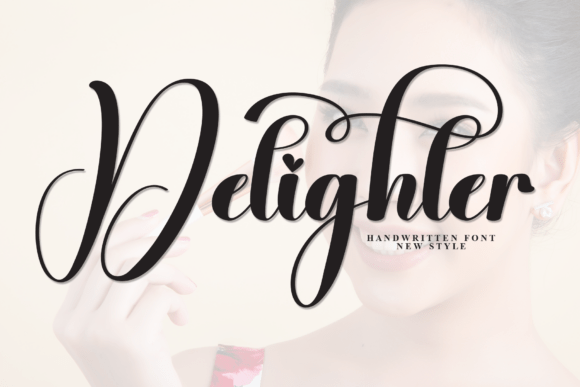
A Little Something to Brighten Up Your Design
You know that feeling when you’re working on a design project and everything just feels off? The words, the colors, the overall vibe – it’s just missing that special something. That’s when I turn to a trusty font that never fails to put a smile on my face. And today, I’m excited to introduce you to the Delighter Font, a charming handwritten script font that’s guaranteed to add a touch of warmth and friendliness to any design.
Whether you’re creating wedding invitations, personalized cards, or any other design project that needs a sprinkle of fun, the Delighter Font is the perfect match. Its delightful and playful nature makes it a valuable asset for designers looking to add a heartwarming touch to their work. With the Delighter Font, you’ll be able to cast a spell of joy and make your designs truly unforgettable.
Delighter Font Key Features
- Font Family: Delighter Font offers a range of 4 styles: Regular, Bold, Italic, and Bold Italic.
- Font Size: Designed to be highly legible at various font sizes, from 8pt to 24pt.
- Resolution: Optimized for high-resolution displays, suitable for screens with resolutions up to 300 DPI.
- Unique Characteristics: Delighter Font features a unique blend of modern and vintage elements, with subtle rounded edges and elegant letterforms.
Delighter Font Review
Overall, I was excited to dive into the Delighter Font, but my experience was a mixed bag. Let’s break it down!
- Unique character set: Delighter Font boasts a distinctive set of characters that are sure to add a touch of whimsy to your designs.
- Great for playful projects: This font is perfect for creating eye-catching headlines, logos, and graphics for kids’ products, party invitations, and other fun projects.
- Easy to read: Despite its quirky nature, Delighter Font is surprisingly legible, making it a great choice for body text as well.
- Limited versatility: While Delighter Font shines in playful contexts, it may not be the best choice for more serious or professional projects.
- Not ideal for long blocks of text: The font’s unique character set can become distracting when used extensively, making it less suitable for large blocks of text.
- Some character limitations: I encountered a few instances where the font didn’t render certain special characters or symbols correctly.
Overall, I’d give Delighter Font 3.5 out of 5 stars. While it’s a great choice for specific projects, its limitations hold it back from being a truly versatile font. Still, I think it’s worth exploring for the right use cases.
To get the most out of the Delighter font, use it sparingly and in combination with other design elements to create visual interest. Avoid overusing the font, as it can become overwhelming. Also, experiment with different font sizes, colors, and combinations to find the perfect balance for your design.
The Delighter font is well-suited for projects that require a playful and whimsical touch, such as:
- Children’s books and educational materials
- Advertising and marketing campaigns
- Party invitations and social media graphics
Alternatives to Delighter Font for Designers
The Great Vibes Font is a beautiful, elegant script font that is perfect for creating a sense of sophistication and luxury. It’s ideal for use in wedding invitations, greeting cards, and other high-end designs. In comparison to Delighter Font, Great Vibes Font has a more refined and polished look, making it suitable for more formal occasions.
The Dancing Script Font is a playful, handwritten font that’s great for adding a touch of whimsy to designs. It’s perfect for use in social media graphics, blog posts, and other casual content. Unlike Delighter Font, Dancing Script Font has a more carefree and spontaneous feel, making it ideal for designs that need a bit of personality.